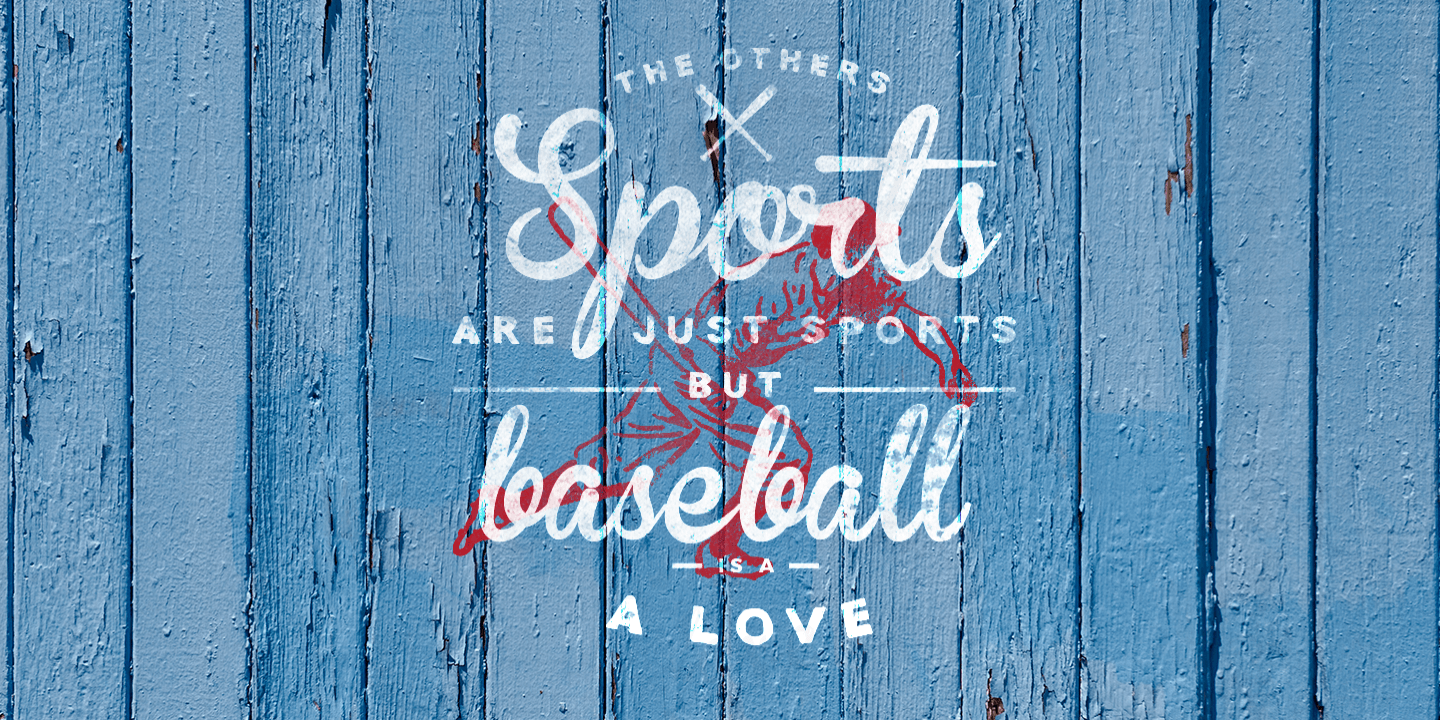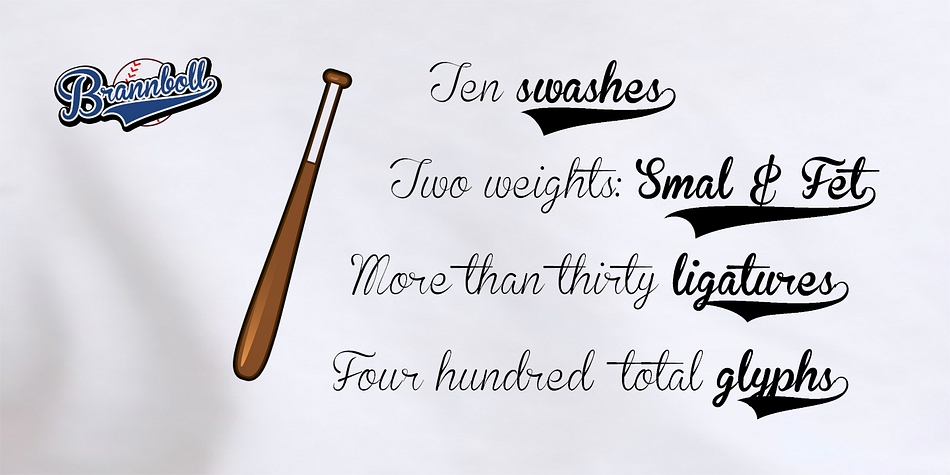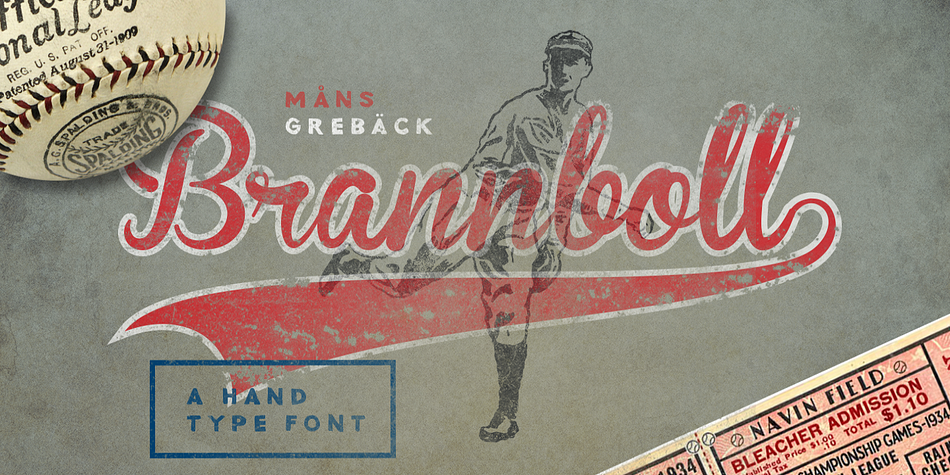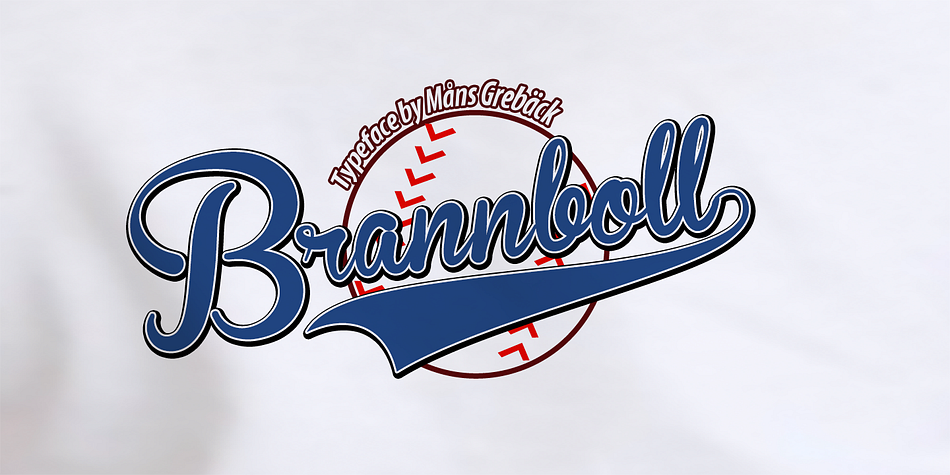
Designed by Måns Grebäck, Brannboll is a script font family. This typeface has four styles and was published by Måns Grebäck.
Baseball style script font, in fat and thin versions. Contains ten different swashes to get a custom look on the words you write. Includes numbers.
Foundry | Måns Grebäck |
Designer | Måns Grebäck |